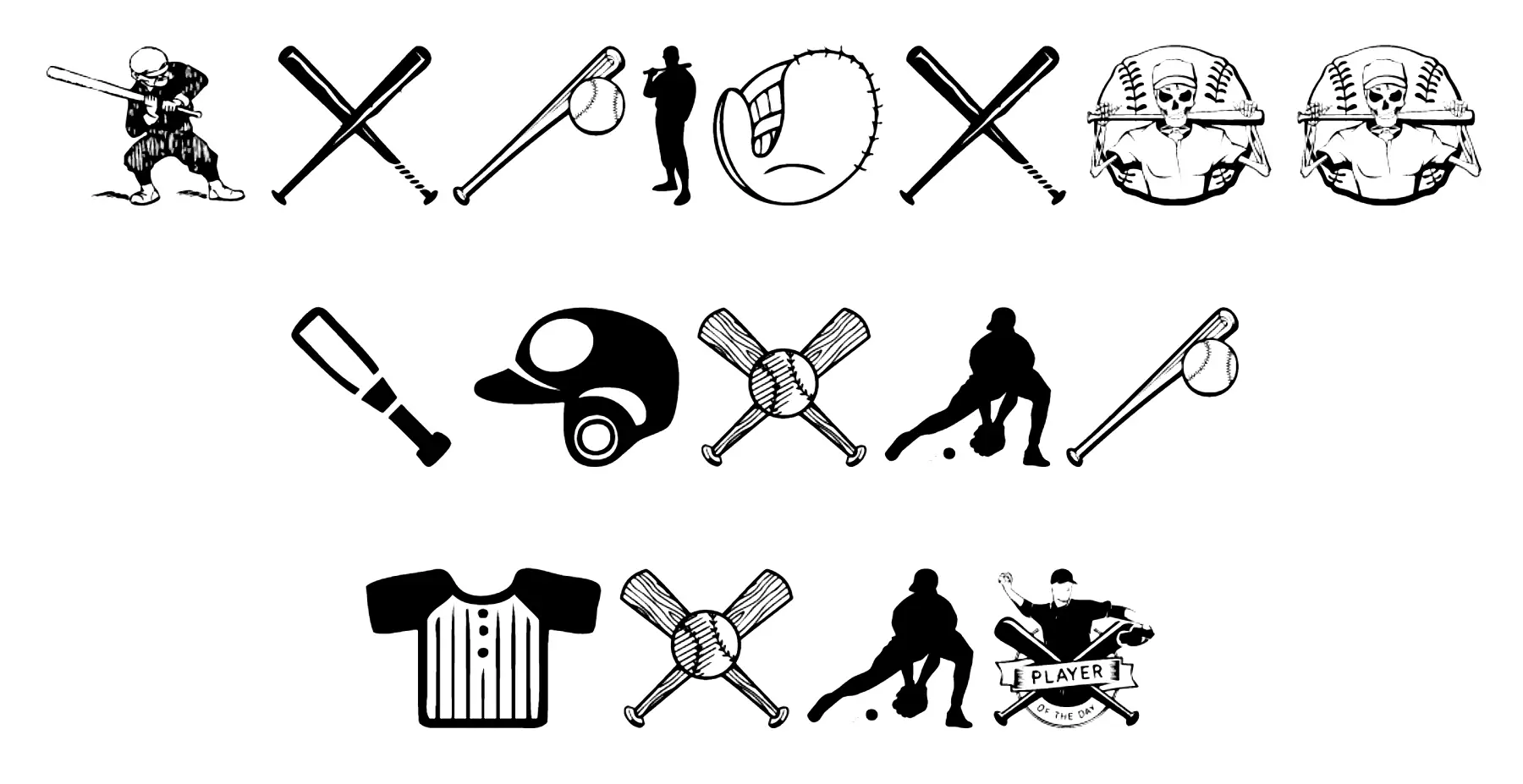
Baseball Icons Font
Baseball Icons is a specialized dingbat and symbol typeface designed and vectorized by Woodcutter Manero (Woodcutter.es). Instead of traditional alphabet letters, typing with this font generates fully compiled vector illustrations, icons, silhouettes, and graphics themed entirely around baseball.
You get every letter from A to Z in both cases and all the numbers from 0 to 9, which means Baseball Icons can handle full sentences, dates and prices. Everyday marks like &, !, ? and @ are there too. Thanks to its accented letters, it also works for Spanish, French, German, Portuguese and Italian, not just English.
Think of Baseball Icons for icons, decorative borders and themed designs. Pick the symbols you want from the character map, then type those keys. Change the font size and color to style the icons like normal text.